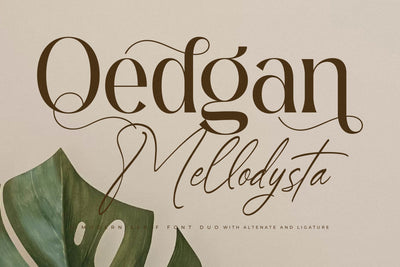
Qedgan Mellodysta Font Duo
Proudly present Qedgan Mellodysta Font Duo , created by Storytype,
A serif and script typeface that has own unique style & modern look.